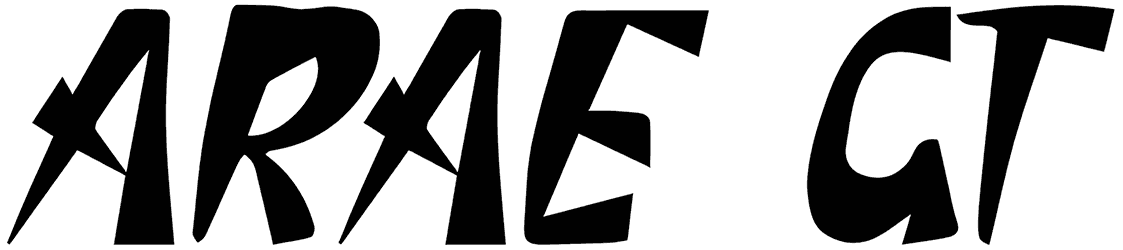
Arae GT Font
Arae GT is a playful and slightly childish fantasy font with a digital nature that can provide an easy way to read your content without straining the eyes. This comic font has a happy and straightforward nature that makes the lack of lowercase letters and numbers not felt.
The same issue has caused companies that work with children and make cartoons or stationery to design their logos and posters to find letters outside the Arae GT frame.